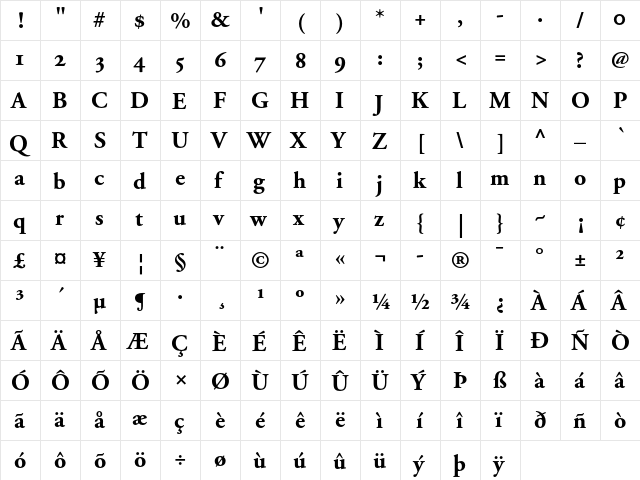
Adobe Garamond Bold OsF Font Preview
Adobe Garamond Bold OsF
Adobe Garamond Bold OsF Font Details
| Style | Bold OsF |
Design Context for Adobe Garamond Typeface
Adobe Garamond offers clean, dependable letterforms without strong stylistic allegiance, making it a practical choice for designers who need flexibility. The heavy weight commands attention and anchors typographic hierarchies.
Pro Tip: Use Adobe Garamond in both headline and body roles to test its range before committing to a single application.